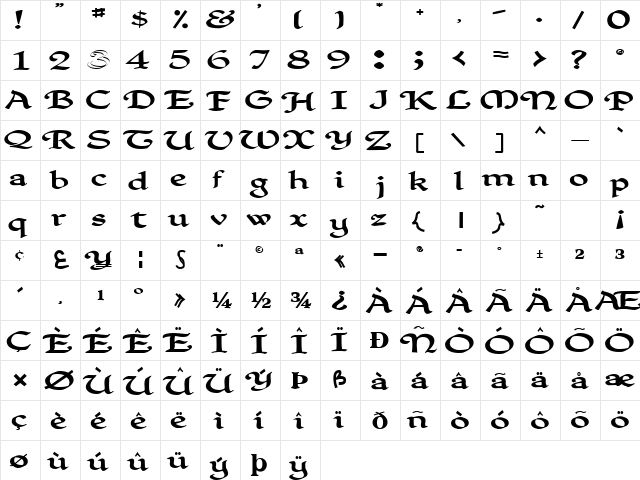
ClarkNorm107 Bold
Design Context for ClarkNorm107 Typeface
ClarkNorm107 takes a measured approach to typography — its balanced proportions and neutral character make it a reliable workhorse for both digital and print work. Its bold stroke weight gives it real presence on the page.
Pro Tip: Use ClarkNorm107 in both headline and body roles to test its range before committing to a single application.